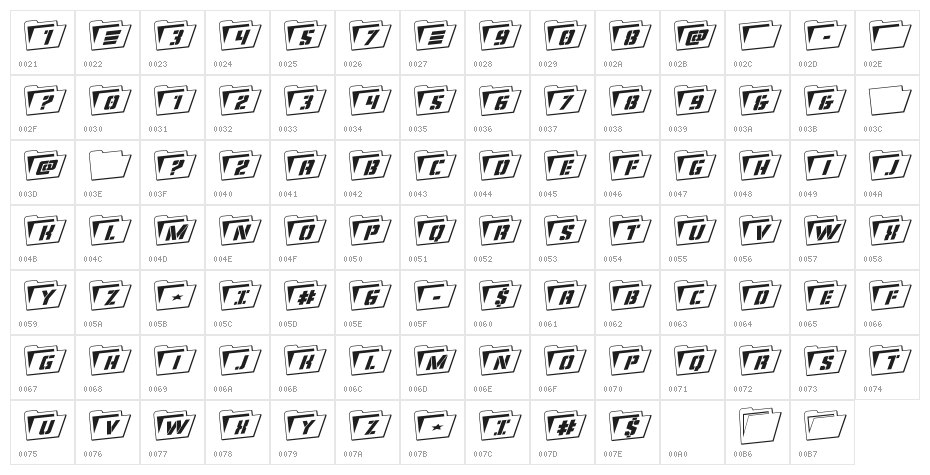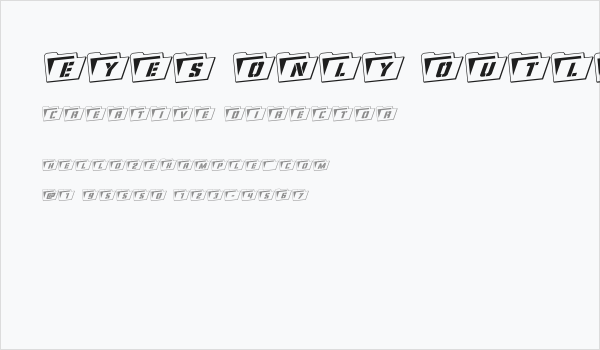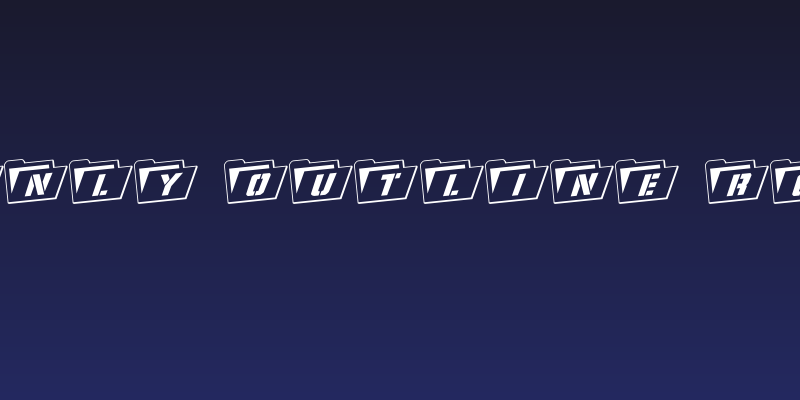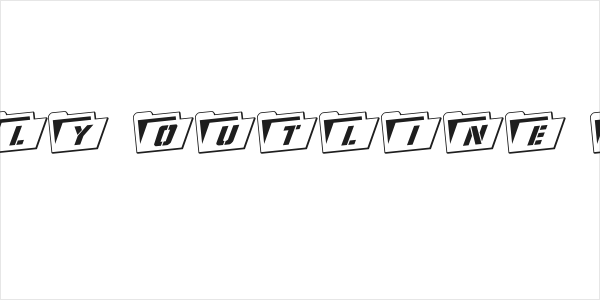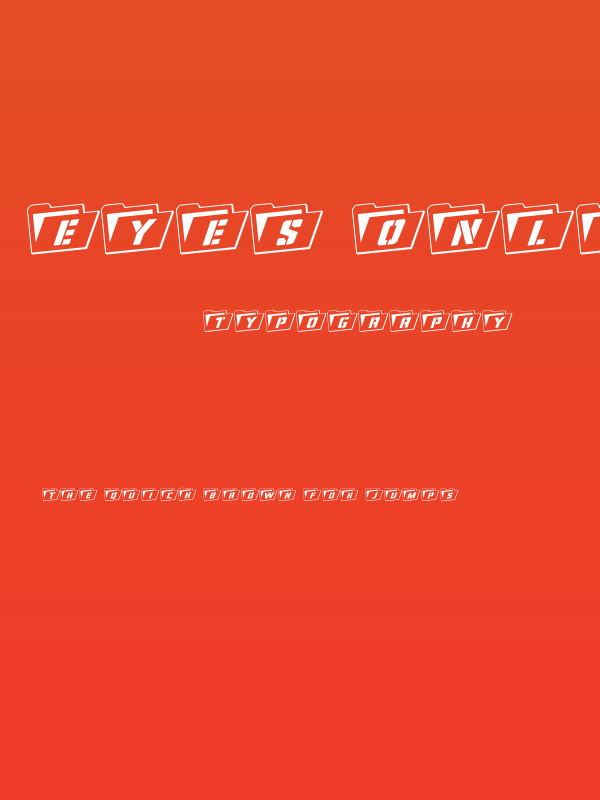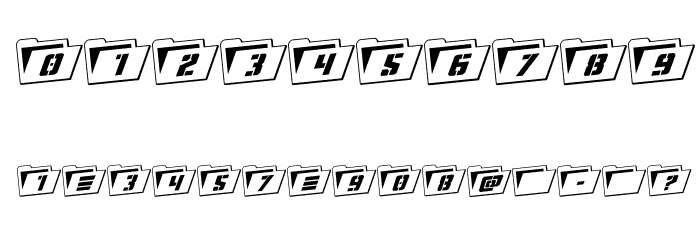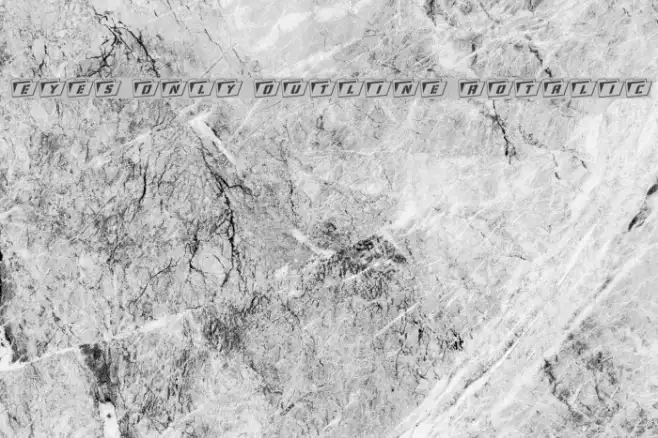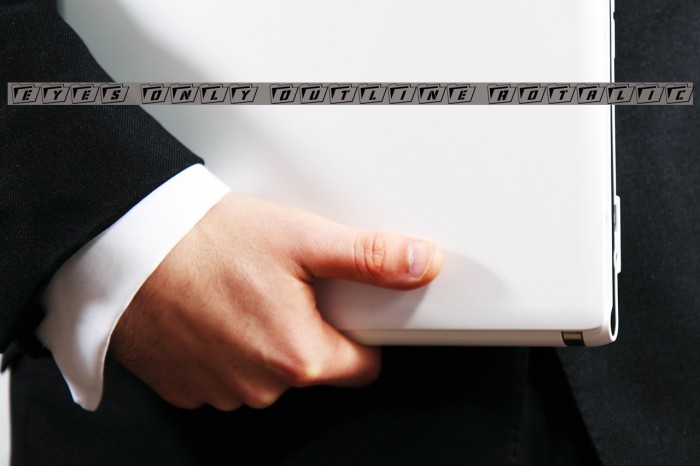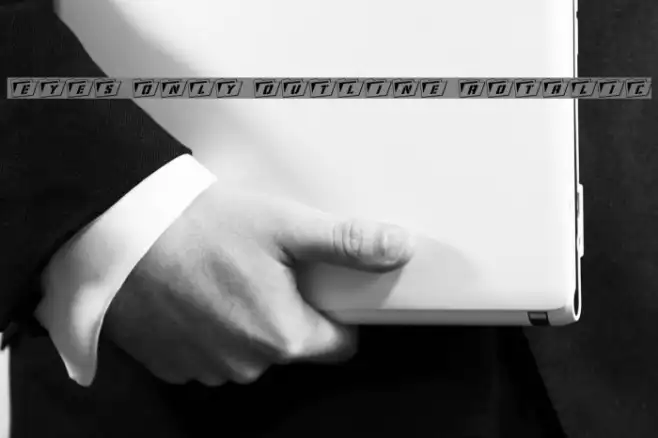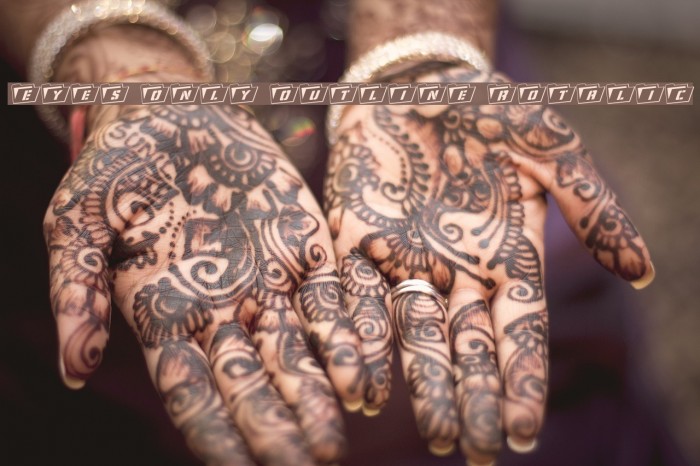
Eyes Only Outline Rotalic Font
Eyes Only Outline Rotalic Description
This font features a unique, futuristic design with each character enclosed in a stylized folder-like outline. The letters and numbers are bold and slanted, giving a dynamic and forward-moving appearance. The outline adds a three-dimensional effect, enhancing the visual impact. The characters are evenly spaced, maintaining a consistent rhythm across the text. This font is ideal for projects that require a modern and edgy look, such as technology branding, sci-fi themed designs, or innovative product packaging. The combination of boldness and slant provides a sense of urgency and movement, making it suitable for attention-grabbing headlines.
| Proposed Projects | Ideal for technology branding, sci-fi themes, innovative product packaging, and attention-grabbing headlines. |